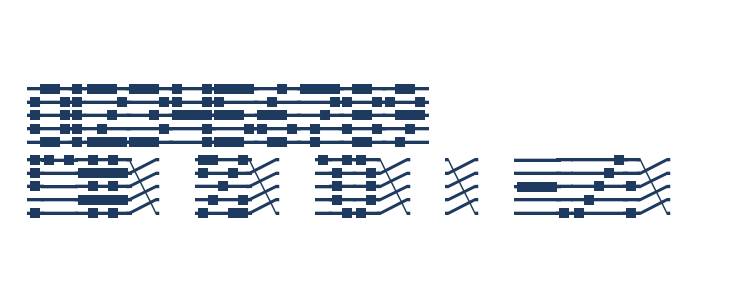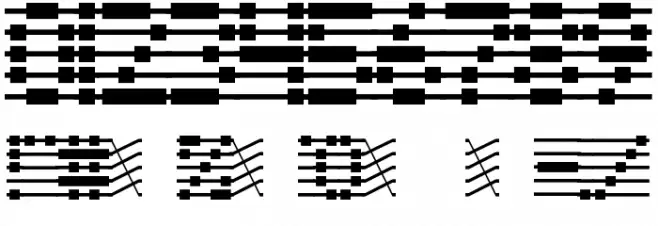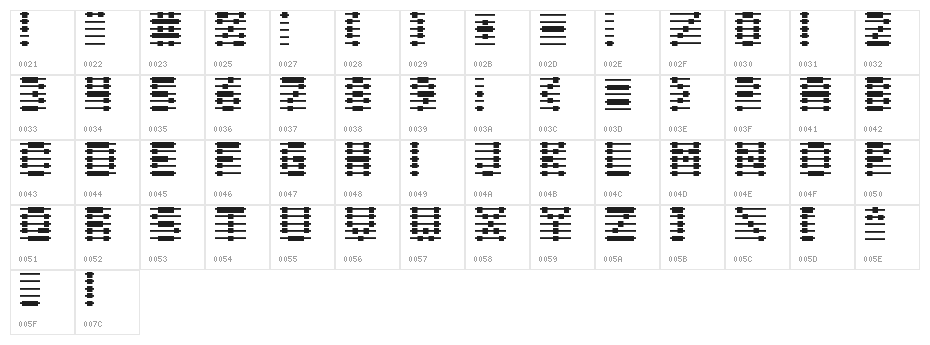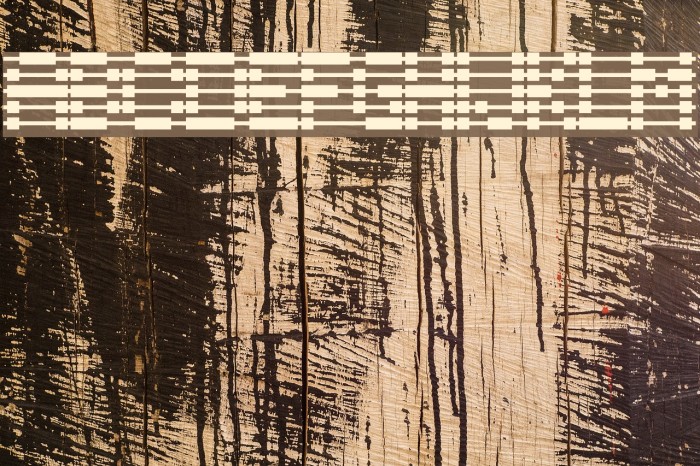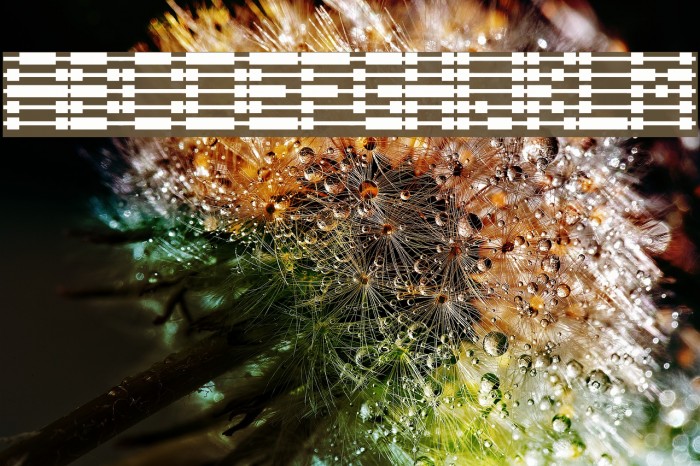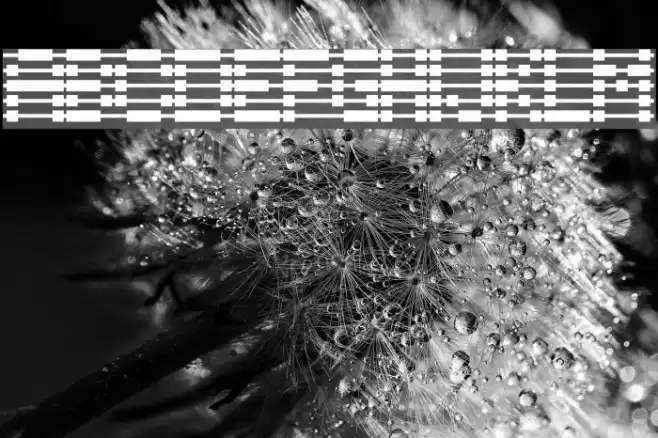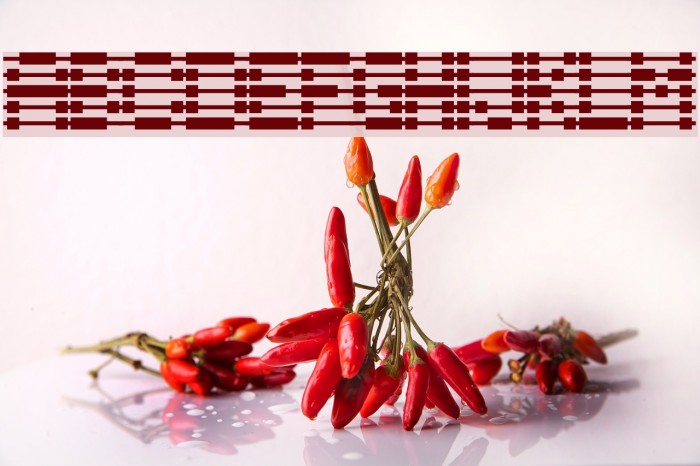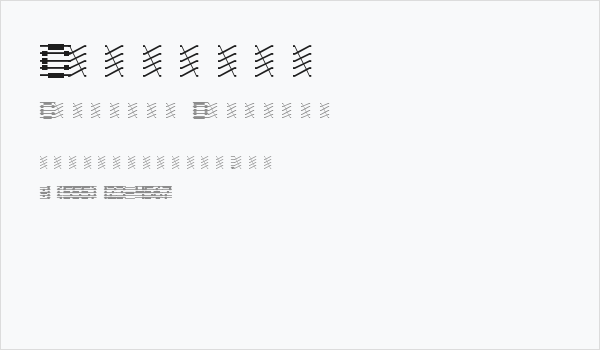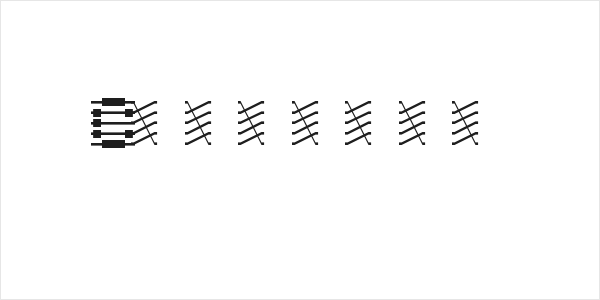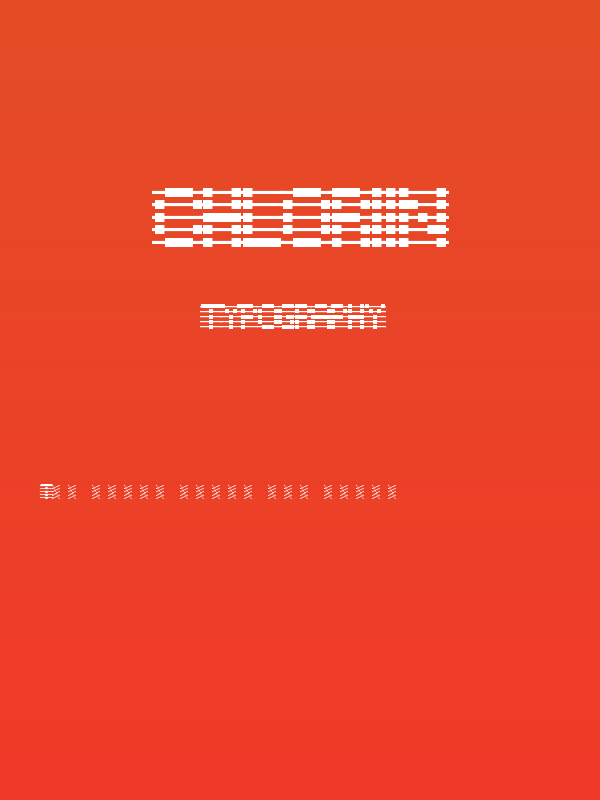
Chloriin Font
Chloriin Description
This font features a highly decorative and abstract design, characterized by a series of horizontal lines intersected by vertical strokes, creating a unique pattern for each character. The uppercase letters are bold and structured, with a futuristic and digital appearance. The lowercase letters maintain the same style but are more condensed, providing a distinct contrast. Numbers and special characters follow the same design principles, ensuring consistency across the font. The overall aesthetic is reminiscent of digital glitch art, making it suitable for projects that require a modern and avant-garde look.
Overall StyleModern, Decorative
Use CaseLogos, Headlines, Artistic projects
Proposed ProjectsIdeal for digital art projects, modern branding, album covers, and experimental design work.